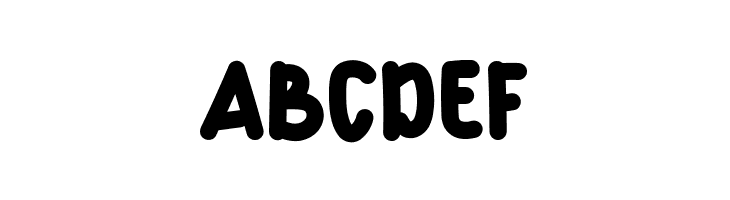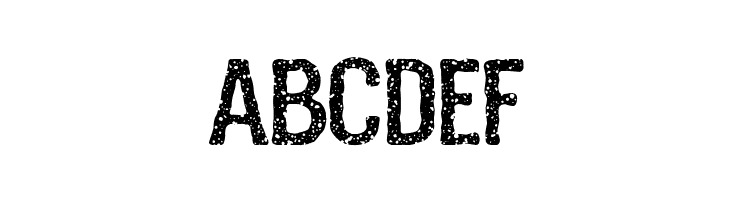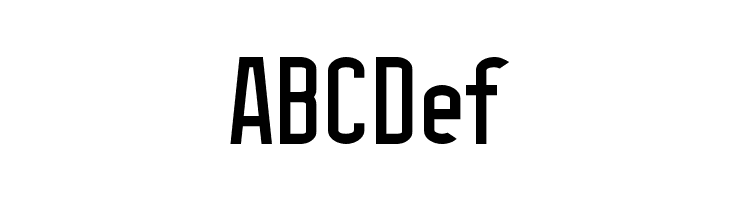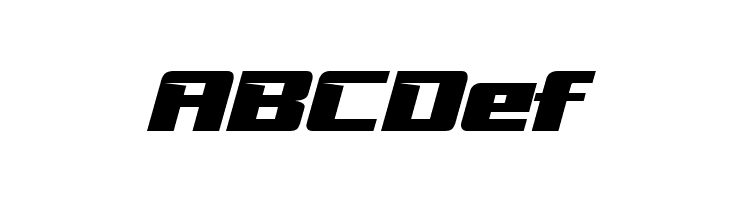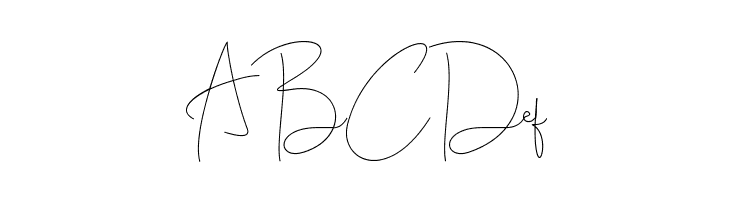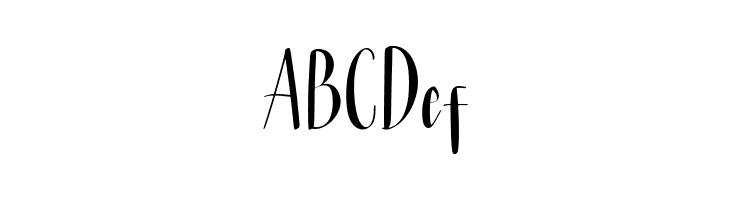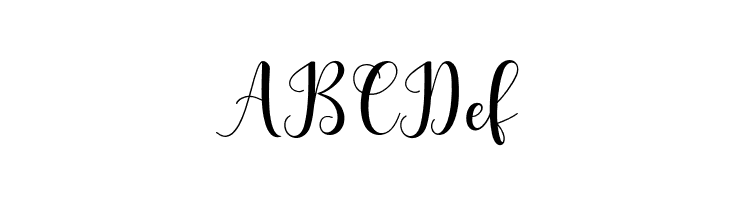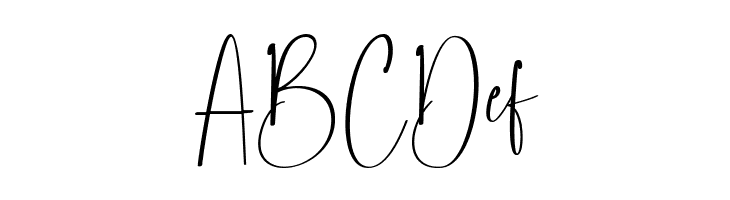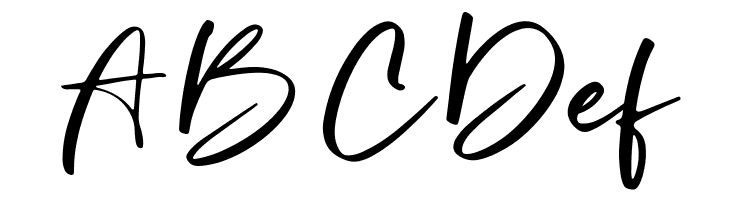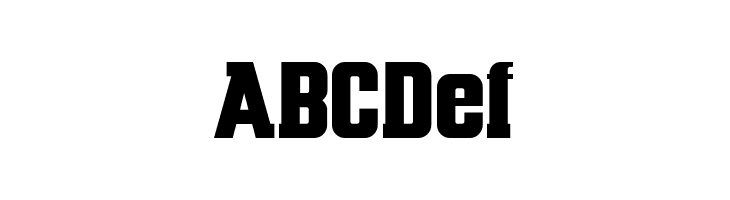
A lively, handwritten font with fluid cursive letterforms.
A bold, vintage-inspired font with strong, thick strokes and a commanding presence.
A tall, narrow, hand-drawn font with thin, elongated strokes.
A playful, hand-drawn font with tall, narrow letterforms and a whimsical style.
A bold, modern font with geometric shapes and high readability.
A playful, handwritten font with dynamic strokes and a whimsical style.
A playful, casual handwritten font with smooth curves and a friendly appearance.
A delicate and elegant handwritten script font with flowing, connected letterforms.
A delicate and elegant handwritten script font with flowing cursive letterforms.
A bold, textured font with a distressed, vintage appearance.
A bold, playful font with rounded edges and a hand-drawn feel.
A playful, bold font with rounded, bubbly characters ideal for fun projects.
A delicate script font with bold numerals, offering elegance and versatility.
A stylish and elegant cursive font with expressive loops and swashes.
A bold, geometric font with sharp angles and a modern aesthetic.
A bold, thorny font with a dramatic and edgy style.
A bold, blocky font with a strong, impactful presence.
A bold, geometric font with a modern and impactful style.
Bold, geometric font with a three-dimensional shadow effect.
A bold, Western-style font with strong serifs and a rugged appearance.
A bold, wide sans-serif font with a modern, geometric style.
An elegant script font with decorative swashes and flowing cursive style.
A playful, handwritten script font with fluid, cursive strokes.
An elegant script font with flowing, interconnected letters and intricate swirls.
An elegant script font with decorative uppercase and bold lowercase letters.
A bold, decorative font with star-filled characters, perfect for playful designs.
A modern blend of handwritten script and sans-serif styles.
A playful, hand-drawn font with an energetic and whimsical style.
A bold, angular font with a futuristic and geometric style.